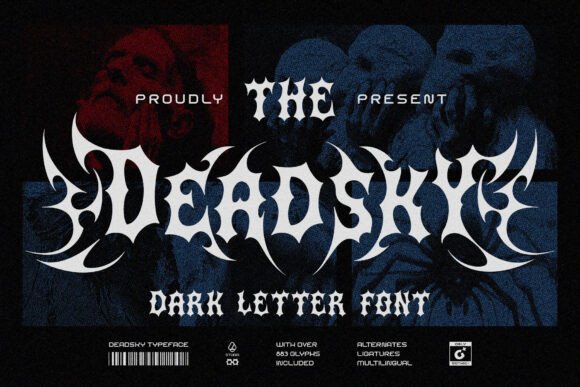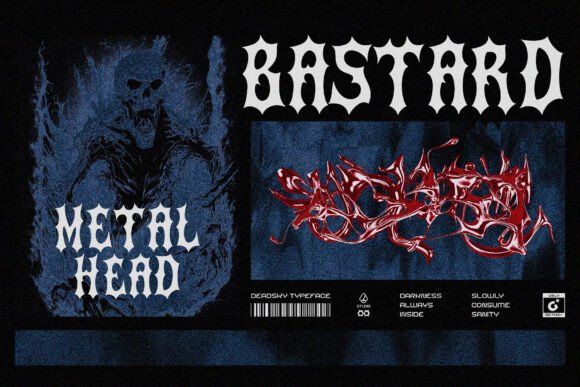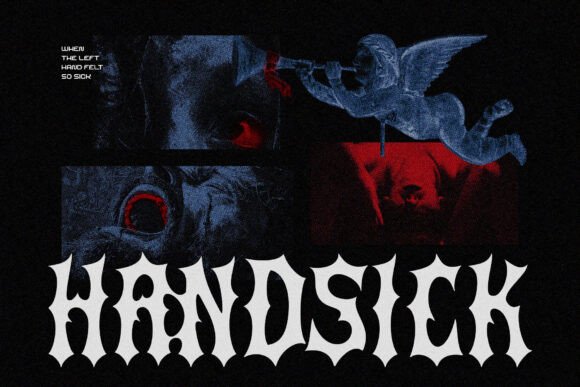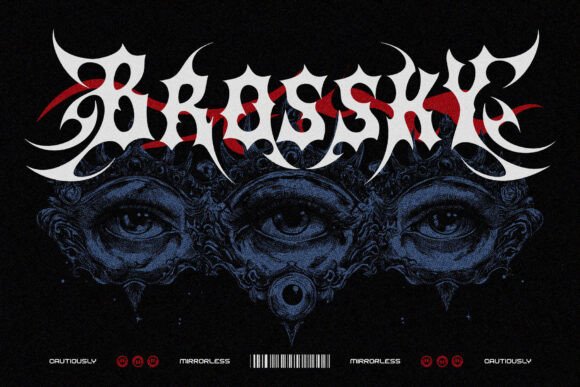
Dead Sky Font
About the Dead Sky Font
Get ready to be inspired by Dead Sky Font, a fresh and dynamic typeface for modern creators. Step into the world of edgy typography with Dead Sky, a powerful darkletter typeface designed to stand out. Inspired by punk culture and tribal motifs, this font exudes a rebellious spirit with its sharp thorn-like elements and dynamic swashes. Whether you’re designing for music, fashion, branding, or art, Dead Sky delivers a bold, aggressive style that commands attention.
Dead Sky thrives in headline applications, short impactful phrases, and logo design, lending a rebellious edge to branding for fashion, music, and gaming projects. Its strong character makes it unsuitable for body text or UI elements where readability is paramount; the intricate details would hinder legibility over longer passages.
Pairing Dead Sky effectively requires considering its aggressive nature. A clean, geometric sans-serif like Futura would provide a strong contrast, grounding its intensity. Alternatively, a classic serif font like Garamond could create sophisticated tension, highlighting Dead Sky’s rebellious spirit.
The font’s core personality is bold and aggressive, perfectly suited for projects demanding a strong visual statement. Avoid pairing it with delicate scripts or overly playful fonts, as this would dilute its inherent power.
Dead Sky Font Usage Examples
Dead Sky Font Example